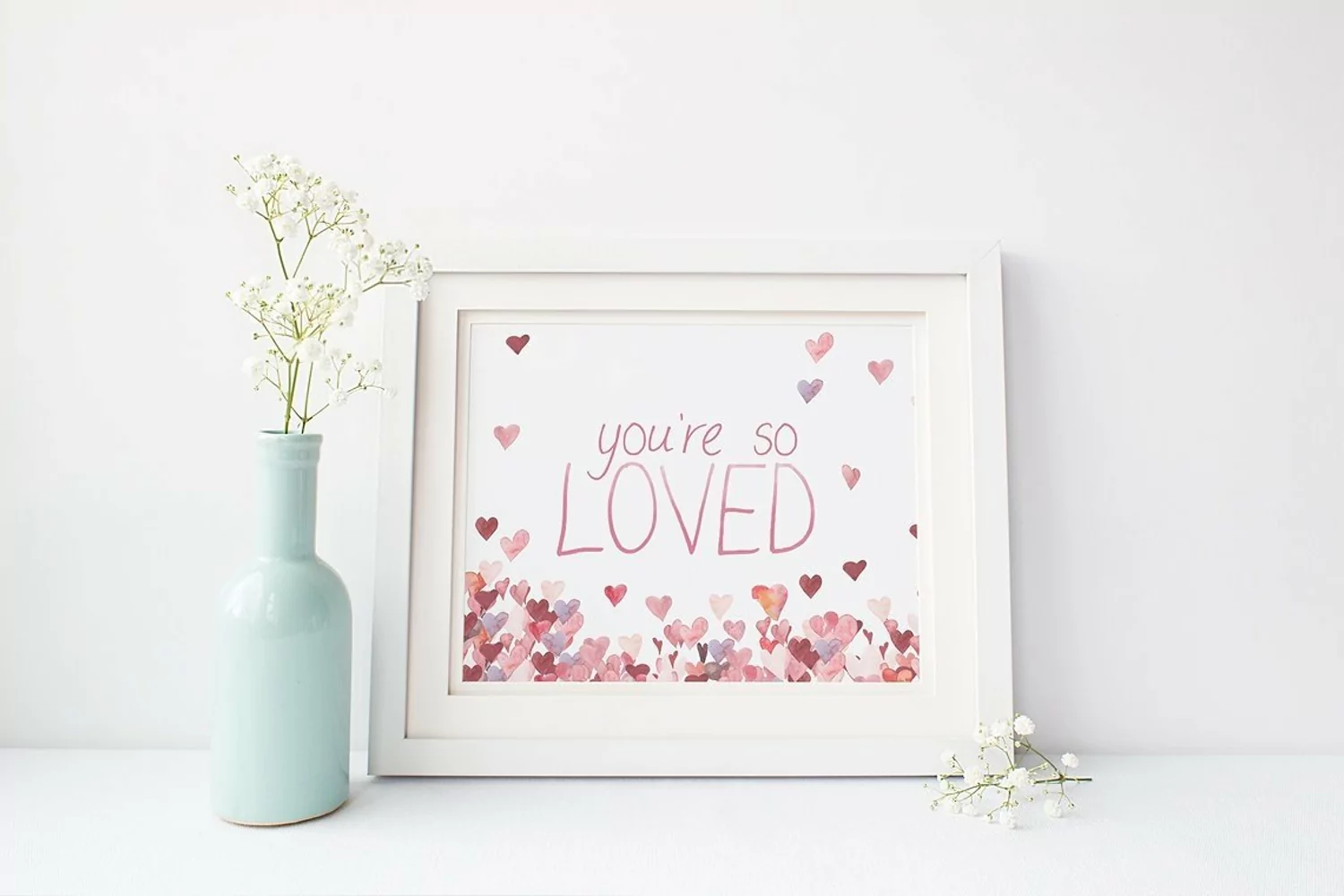
Introducing: Post & Love, a new font that is a true, hand-written offering that looks fab combined with script fonts or left to stand alone. Perfect for labelling and logos.What's Included: